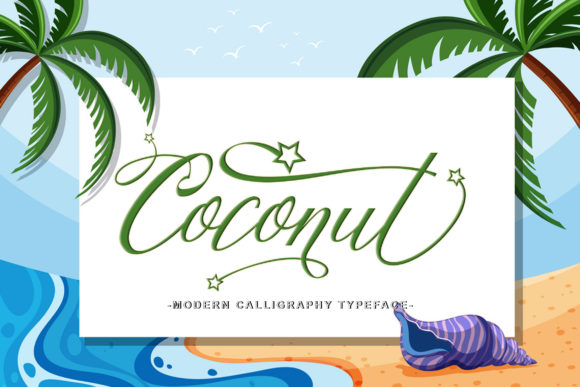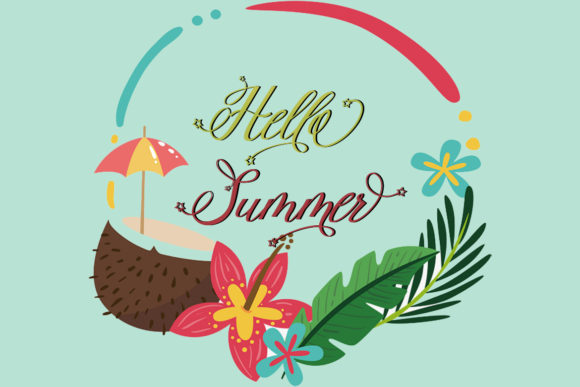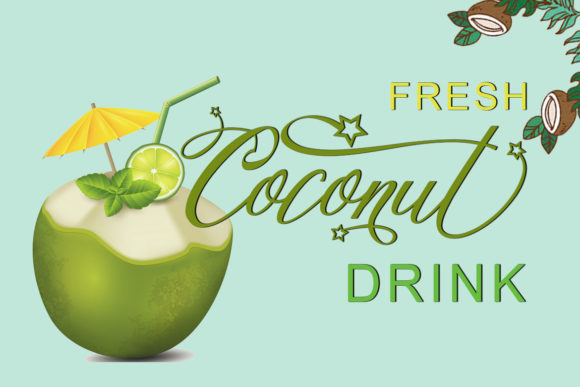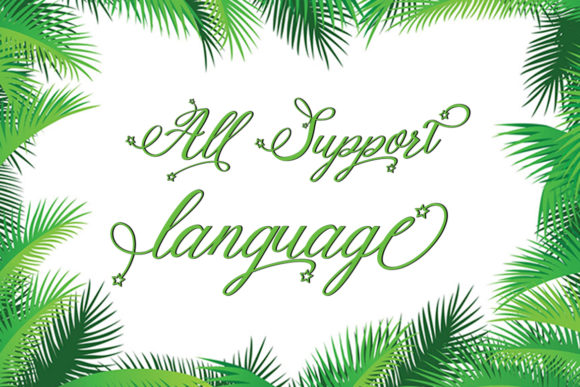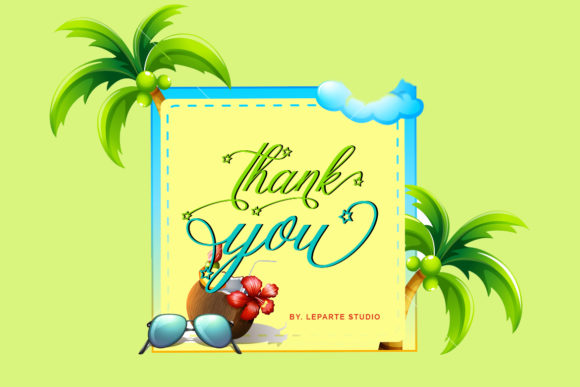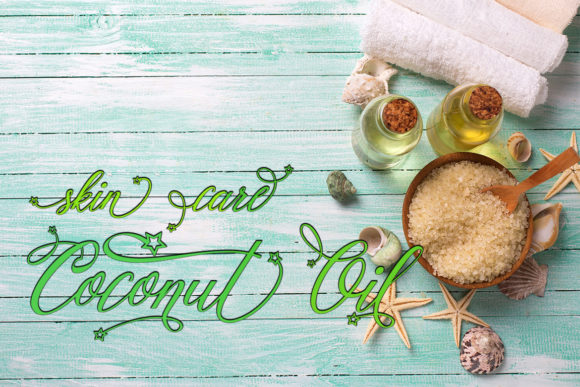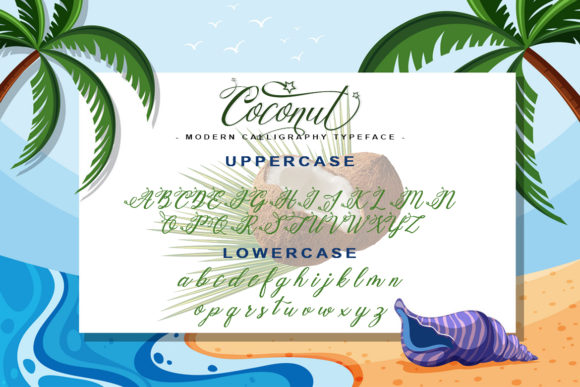
Coconut Script Font
The Coconut is an amazing modern calligraphy font. It was made with perfect precision for every single curve, and was build with a horizontal and vertical path. It includes beautiful swashes which will add an elegant touch to your designs.
It can be used for various purposes.such as headings, signature, logos, wedding invitation, t-shirt, letterhead, signage, lable, news, posters, badges etc.